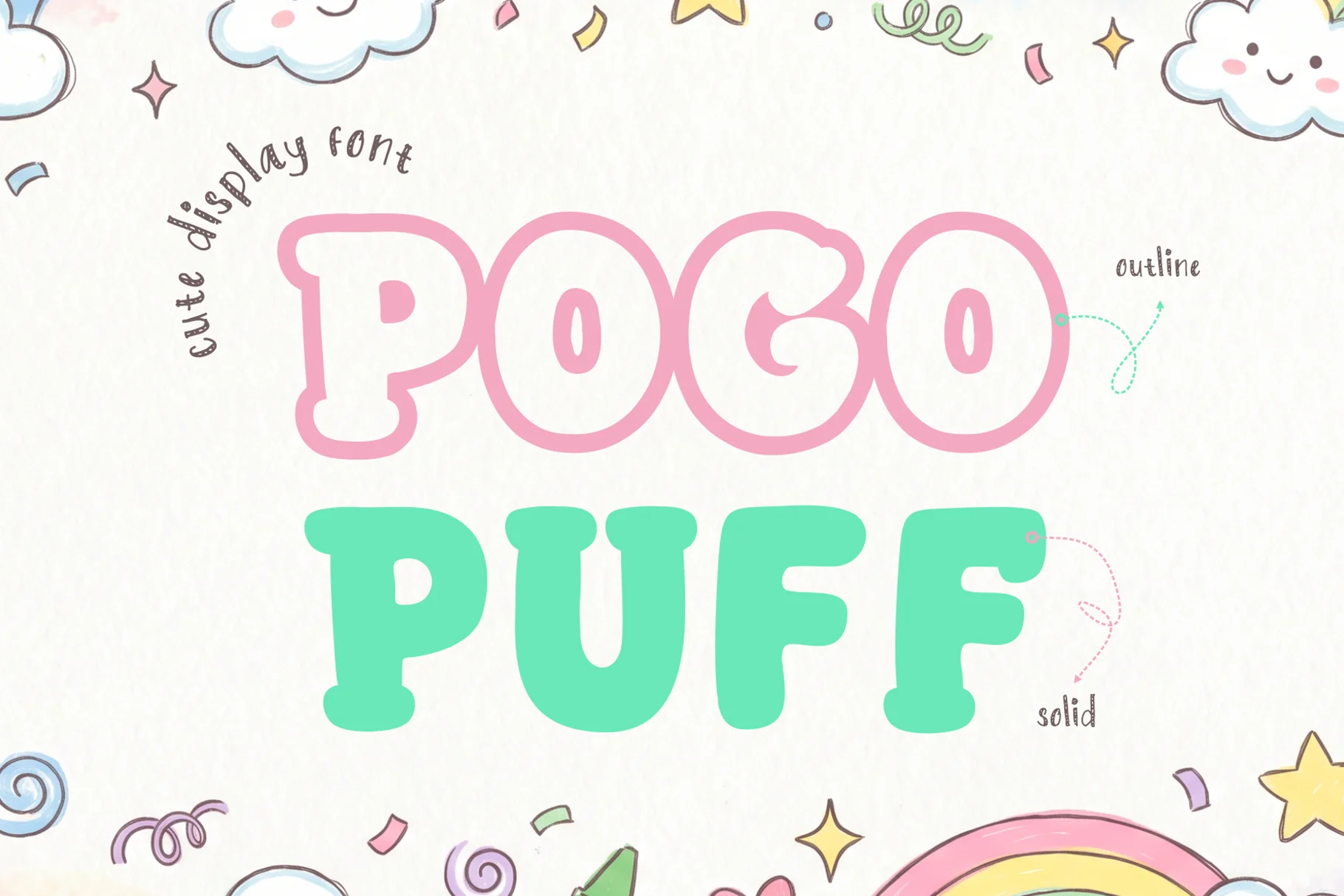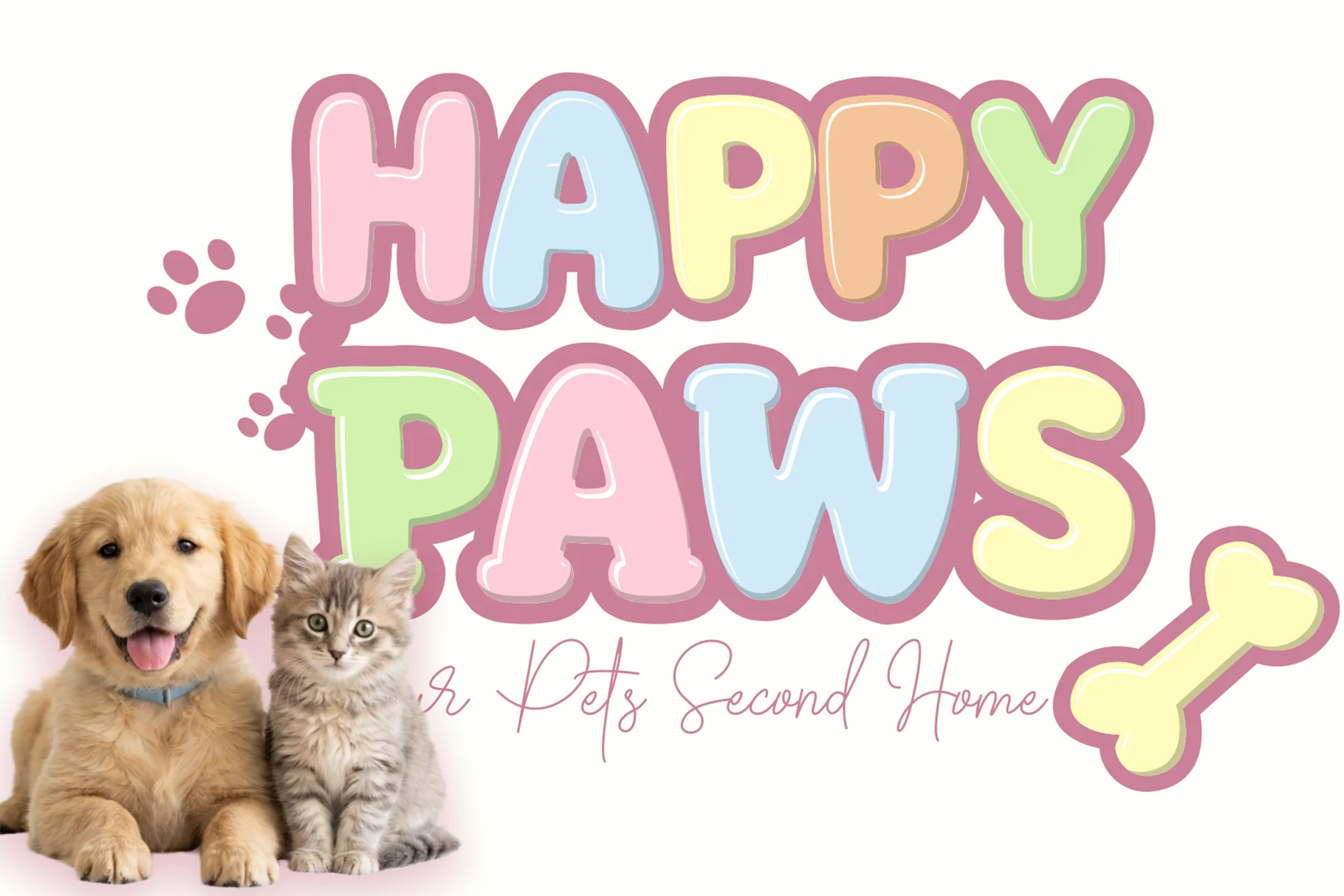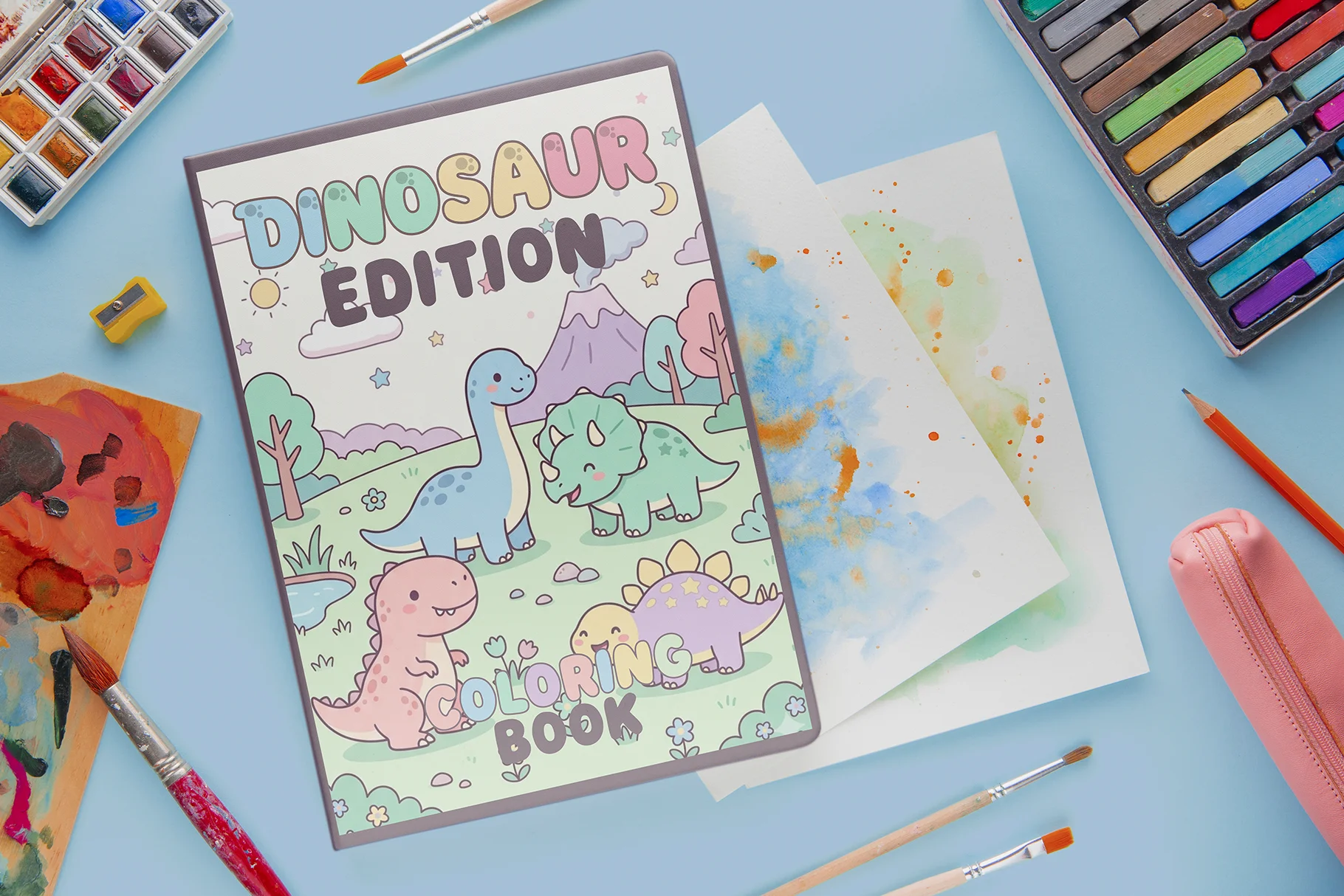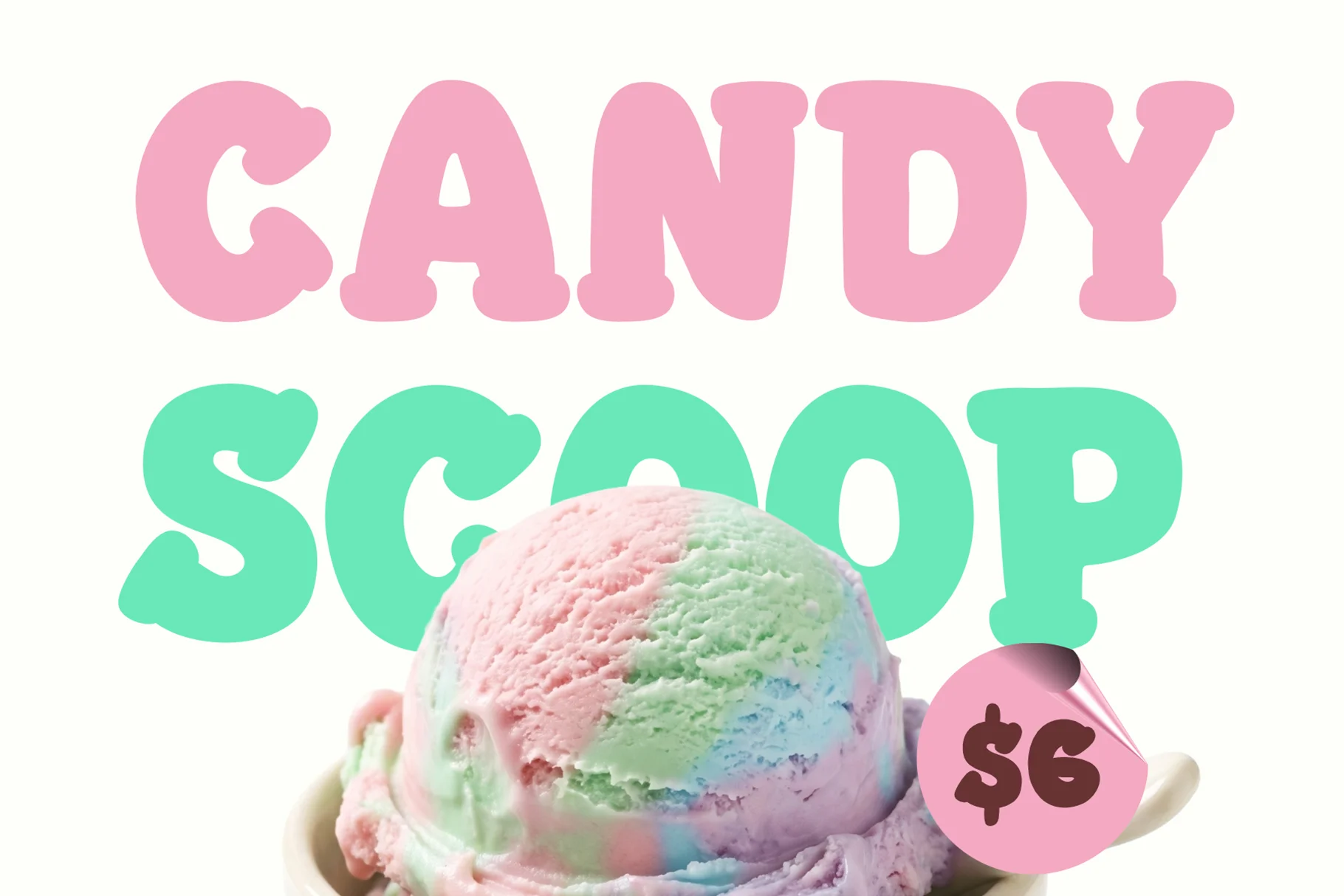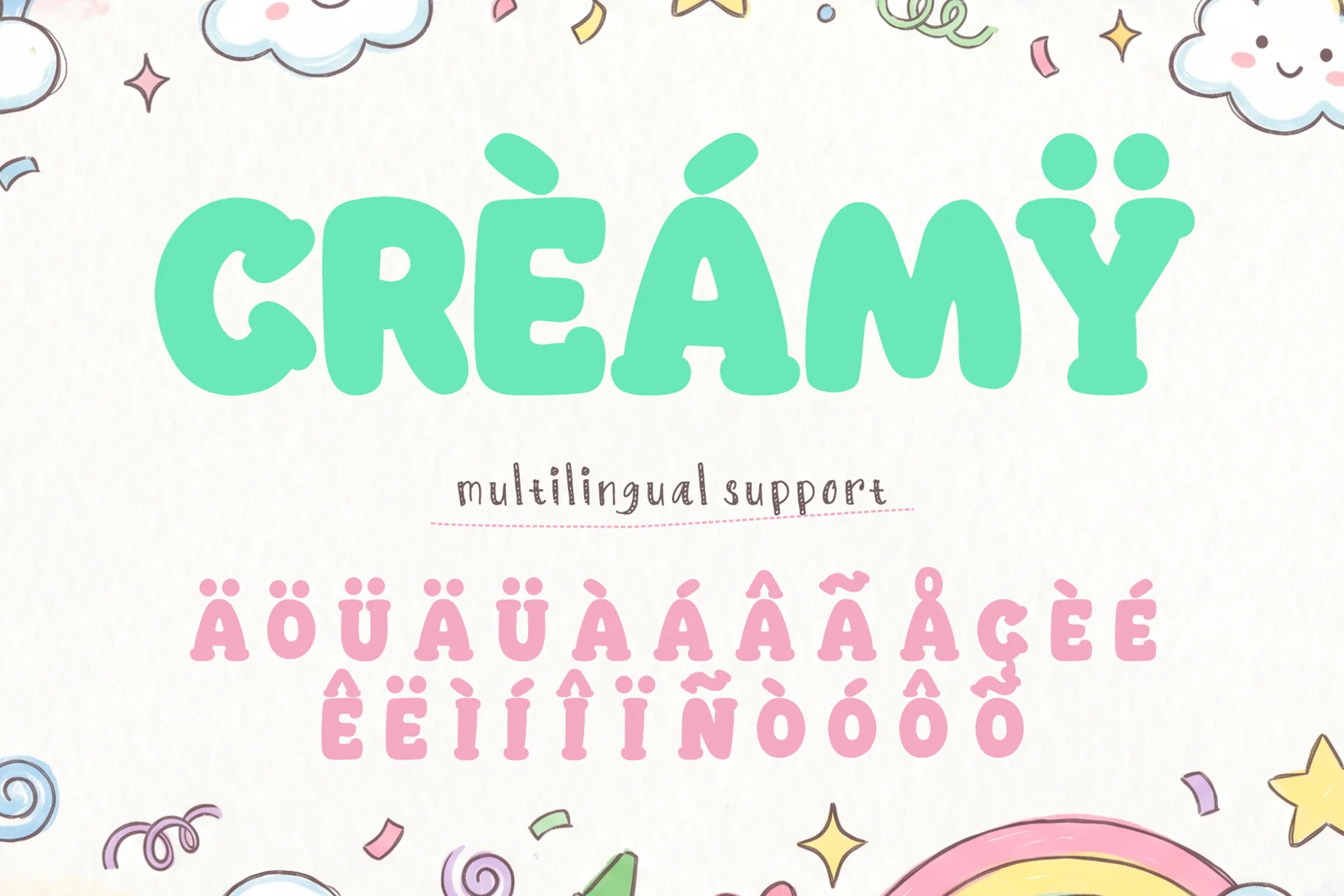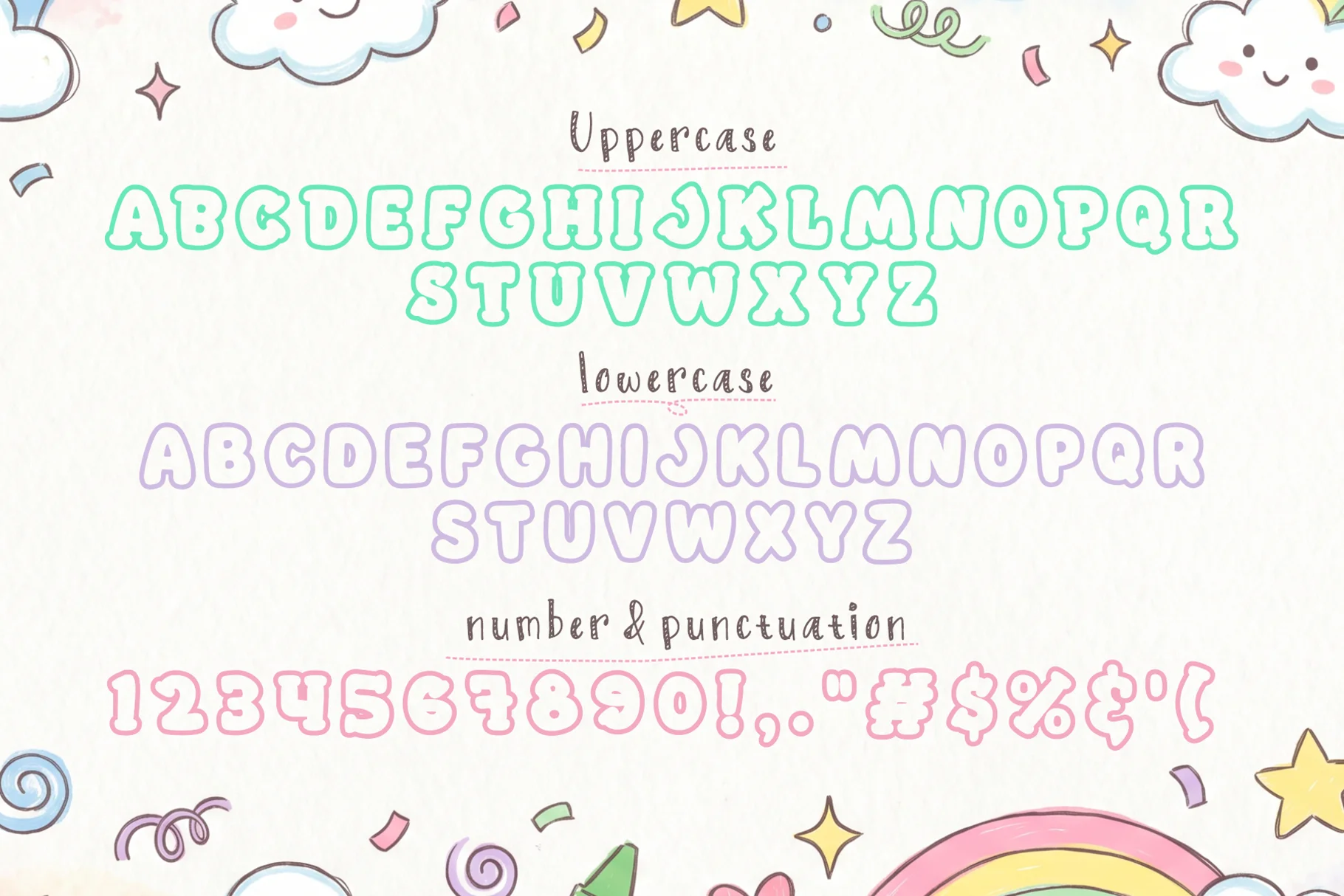
About Pogo Puff
Pogo Puff is a lively display font built for bold, playful typography and expressive visual compositions. Its name suggests a lighthearted, energetic character, making it well suited to designs that need a fun typographic presence without feeling overly formal or restrained.
Created for display use, Pogo Puff works naturally in large headlines, short statements, titles, labels, and graphic compositions where the lettering needs to stand out. The family includes a solid style and an outline variation, giving designers room to create contrast, layering, and different levels of visual emphasis within the same project.
Its straightforward display approach makes Pogo Puff adaptable across cheerful branding, posters, packaging, merchandise, social graphics, and other projects where typography can carry a strong visual role.
Playful Display Character
Pogo Puff is designed as a display-oriented typeface with an energetic and approachable personality. Rather than functioning as a neutral text face, it is intended to attract attention and contribute directly to the overall graphic language of a composition.
The accompanying outline style adds another visual treatment to the family, allowing the typography to shift between a more solid presence and a lighter outlined appearance. These styles can also be combined to create typographic depth and hierarchy in posters, headlines, and graphic artwork.
All Caps, Numbers & Punctuation
Pogo Puff includes all-caps lettering, numbers, and punctuation, providing the essential characters needed for display headlines, titles, promotional phrases, dates, prices, and other graphic messaging. Its uppercase format is particularly suited to short words and phrases where typography needs to function as a prominent visual element.
Multiple Display Styles
The Pogo Puff family includes two styles: Pogo Puff and Pogo Puff Outline. The main style provides a solid display treatment, while the outline version offers a more open graphic appearance. Using the styles separately or together can help establish hierarchy and variation without moving away from the core visual identity of the typeface.
Applications for Playful Typography
- Posters and promotional graphics
- Packaging and product labels
- Merchandise and apparel graphics
- Social media and digital artwork
- Playful branding and graphic identities
- Display font style
- Playful and energetic character
- All-caps lettering
- Numbers included
- Punctuation included
- Pogo Puff solid style
- Pogo Puff Outline style
- Two complementary display treatments
- Suitable for bold headline typography
- Useful for graphic and decorative compositions
Why Designers Love Pogo Puff
Pogo Puff gives display typography a distinct graphic role, making it useful when a headline needs to do more than simply communicate information. Its playful character can help establish an approachable mood across posters, packaging, merchandise, and promotional artwork.
The two included styles also provide practical flexibility. The solid version can create stronger emphasis, while the outline style can introduce contrast or secondary hierarchy. This makes it possible to build varied compositions while keeping the typography visually connected.
Bring Energy to Display Type
Pogo Puff is a playful display font family designed for projects that call for expressive, attention-focused typography. With its solid and outline styles, it can support both bold statements and lighter graphic treatments.
Use Pogo Puff for posters, packaging, merchandise, social media graphics, playful branding, and other creative projects where a distinctive display font can become an important part of the visual identity.